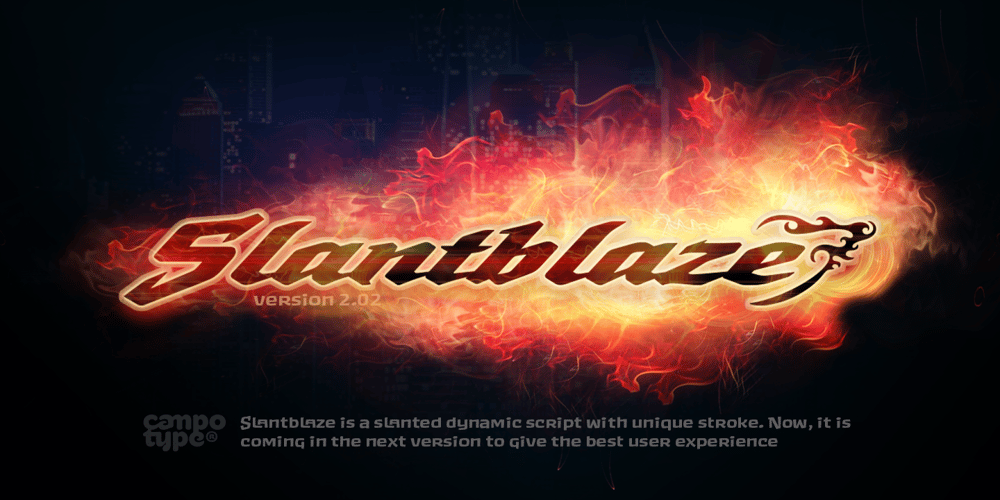
Slantblaze Pro Font Family was designed by Andi A. W. Masry and published by Campotype. Slantblaze Pro contains 1 styles and family package options. We Redesigned this Slantblaze-Pro.Slantblaze Pro is an exteme slanted display script with characteristics: Simple, Thick, Contrast, and Dynamic. First launched in 2011, and now we present it again in a new version to provide the best user experience.As italics (default), Slantblaze Pro has aloof challenge as a display font. It was designed as an alternative for headline, title in any purpose such as header, brands, packaging, identity, automotive logo, etc.What’s new and changed: This version 2.02 comes in a True Type OT-flavor version. The outline were designed to be smoother than before. Redesign of ‘C’, ‘E’, ‘F’, ‘G’, ‘T’, and some changes to all other smallcases Removed: question.sc, questiondown.sc, exclam.sc and exclamdown.sc assuming they will never be used Rewrite the features structure and adding some new related to all changes New swashed glyphs: A-Z The writing system of numbers is completed with the old-style version and each tabular and proportional method New contextual (calt) to an alternative look of “A” when combined with all lowercase. Also in this feature we have another way to access Ornaments is more interactive by combining dlig and calt features. Another new glyph may be access only in feature (salt)